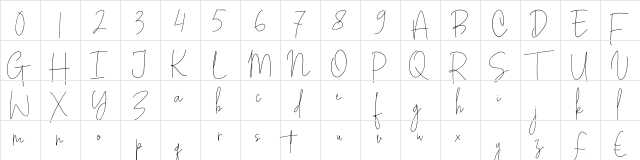
White Apparel Font Preview
White Apparel Apparel
White Apparel Font Details
| Style | Apparel |
| Designer | Muhammad Husni Haikal |
Design Context for White Apparel Typeface
White Apparel is a composed and adaptable typeface that performs quietly and consistently across a wide range of design contexts.